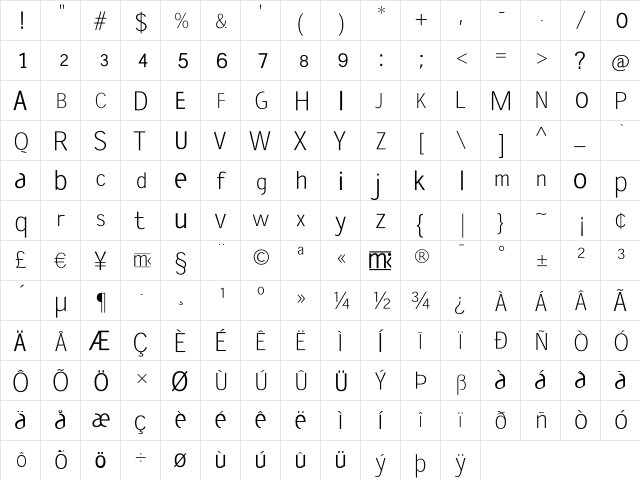
Diversitia Regular Font Preview
Diversitia Regular
Diversitia Regular Font Details
Design Context for Diversitia Typeface
Diversitia takes a measured approach to typography — its balanced proportions and neutral character make it a reliable workhorse for both digital and print work.